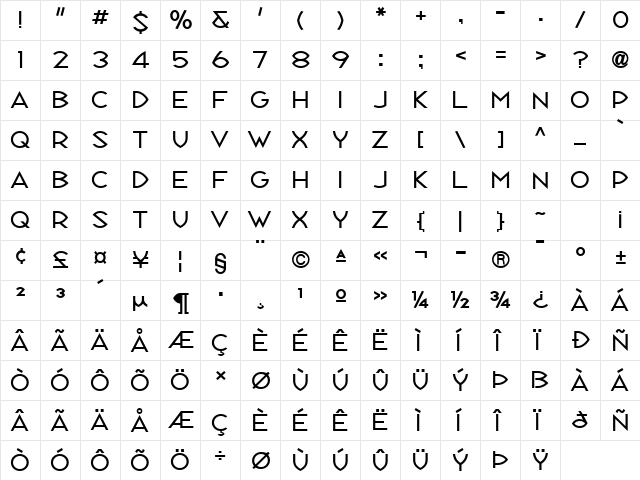
Republik Sans ICG 01 Regular
Design Context for Republik Sans ICG 01 Typeface
Republik Sans ICG 01 is a composed and adaptable typeface that performs quietly and consistently across a wide range of design contexts.